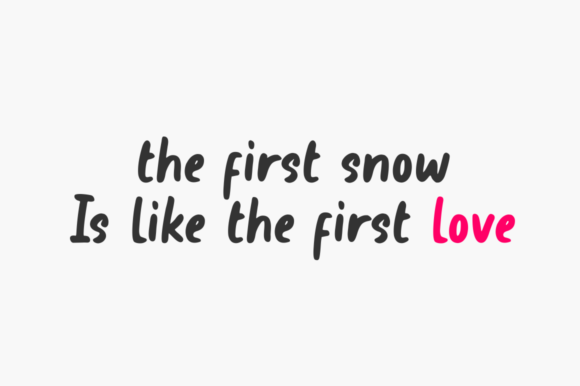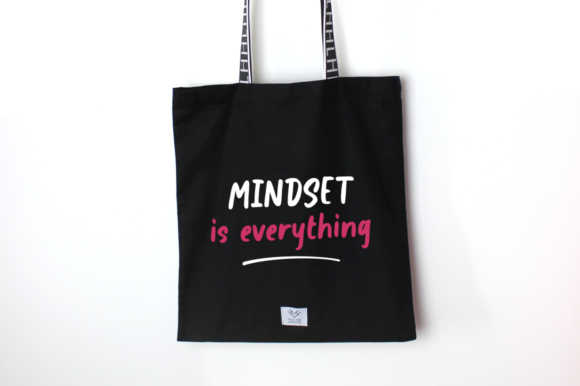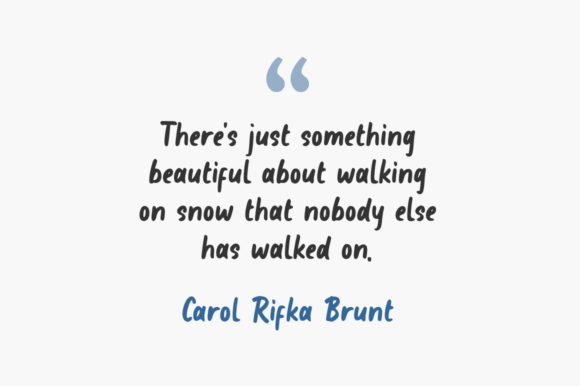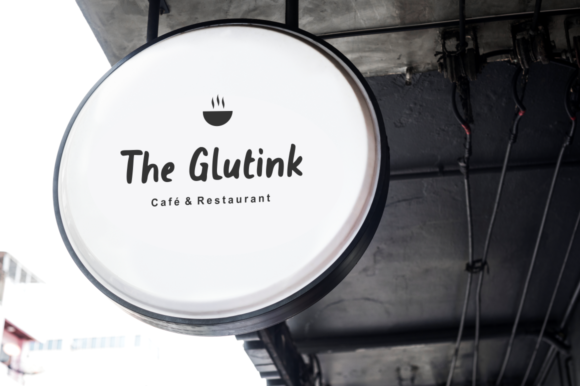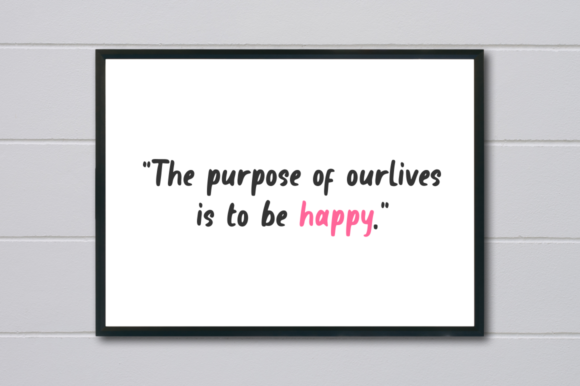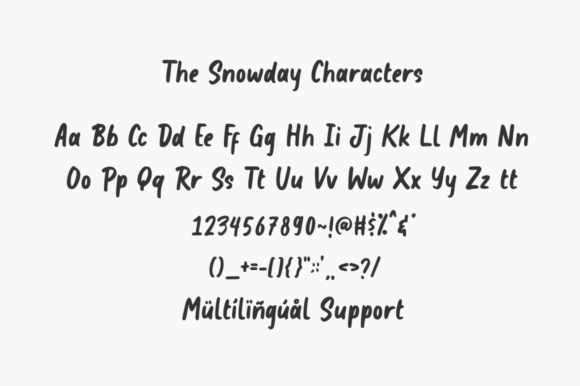
The Snowday Font
About The Snowday Font
The Snowday font sounds absolutely delightful! As a simple and sweet paint brushed handwritten font, it brings a touch of warmth and charm to your designs. With its beautiful and well-balanced characters, The Snowday font is a versatile choice that complements a wide range of design projects.
The simplicity of The Snowday font adds a sense of authenticity and approachability to your designs. Its paint brushed style adds a handmade and organic feel, creating a unique and personal touch. Whether you’re designing greeting cards, invitations, posters, or any other creative project, The Snowday font adds a touch of whimsy and creativity.
The well-balanced characters of The Snowday font ensure readability and legibility, making it suitable for various applications. Its clean and straightforward letterforms maintain clarity while retaining a playful and friendly vibe. The Snowday font can be used in both large and small sizes, allowing you to experiment and create eye-catching compositions.
The versatility of The Snowday font makes it a fantastic choice for a wide range of designs. Whether you’re working on branding projects, social media graphics, packaging, or anything in between, this font effortlessly enhances the overall aesthetic. Its simple and sweet nature adds a touch of charm and character, making your designs come alive with creativity.
In summary, The Snowday font is a simple and sweet paint brushed handwritten font that adds warmth and charm to your designs. With its well-balanced characters and versatile nature, it matches a wide pool of creative ideas. Incorporate The Snowday font into your projects and watch as it brings your designs to life with its whimsical and handmade appeal. Let this font inspire your creativity and create memorable designs that leave a lasting impression.